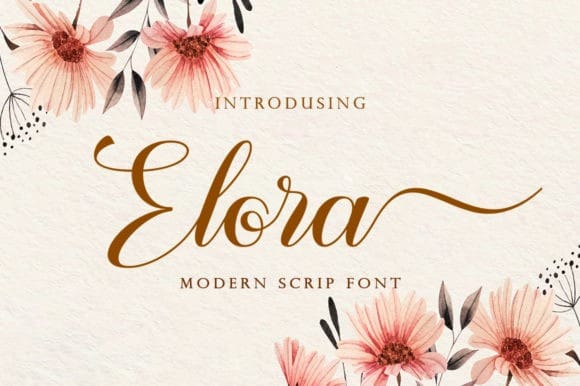
Elora Font
Elora Font is a delicate, elegant and flowing handwritten font. It has beautiful and well balanced characters and as a result, it matches a wide pool of designs. Add it to your most creative ideas and notice how it makes them come alive!